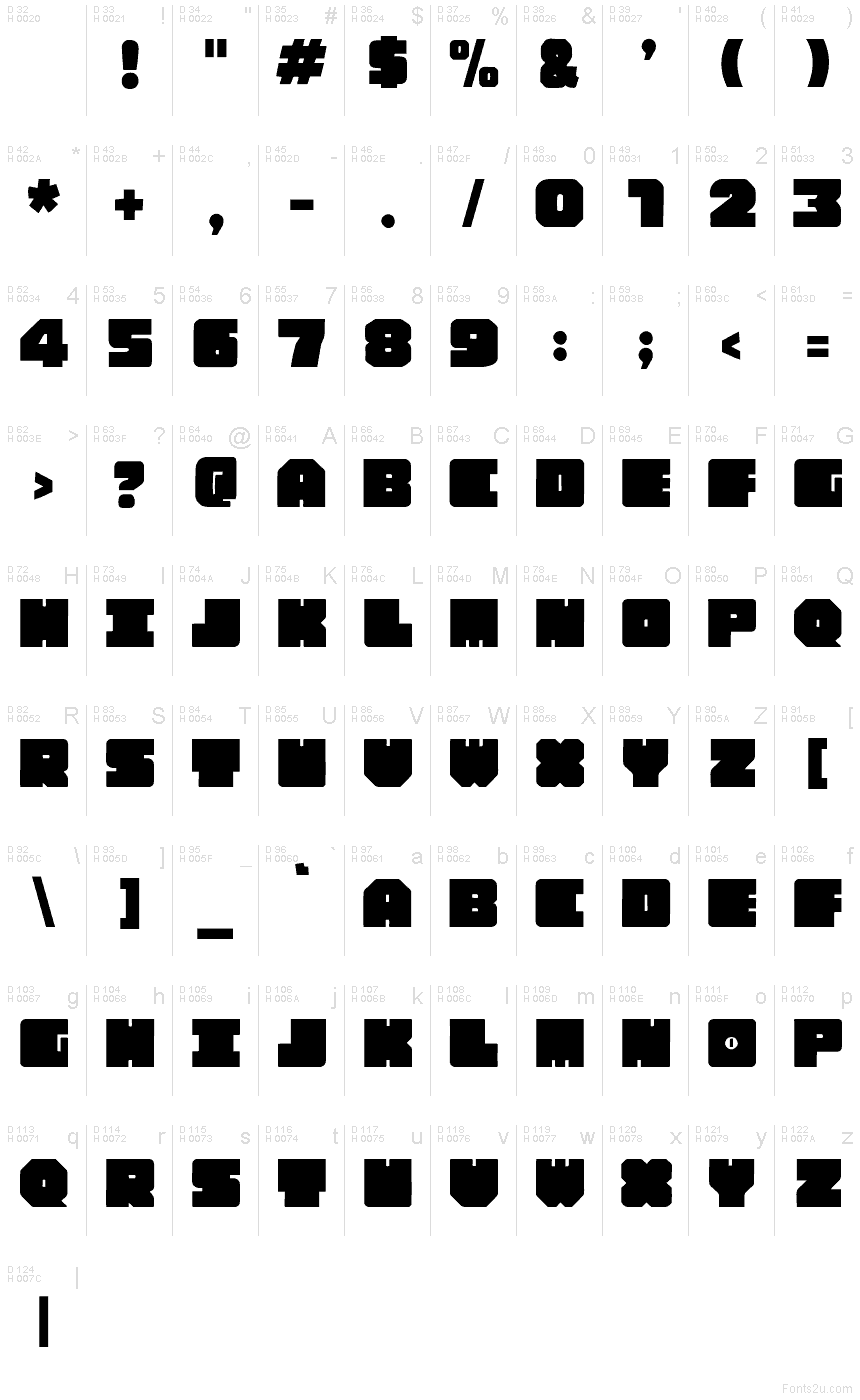
Pixel Robot
Pixel Robot font by BlackFridayFont FMF is a free techno display font. Built from chunky, monolithic blocks with crisp, snap-to-grid rhythm, it serves up a satisfying 8-bit thump without sacrificing clarity. Square-cut silhouettes and punchy interior dots give headlines a hard-edged, machine-made presence that still reads clean at a glance.
Using Pixel Robot, bold ideas land fast—think game logos, sci‑fi posters, eSports branding, stream overlays, tech event flyers, and sticker sets. The compact spacing helps titles hit like buttons on a console, while the modular shapes scale beautifully for banners and thumbnails. Pair this free font with a neutral geometric sans for small copy to keep the message sharp.